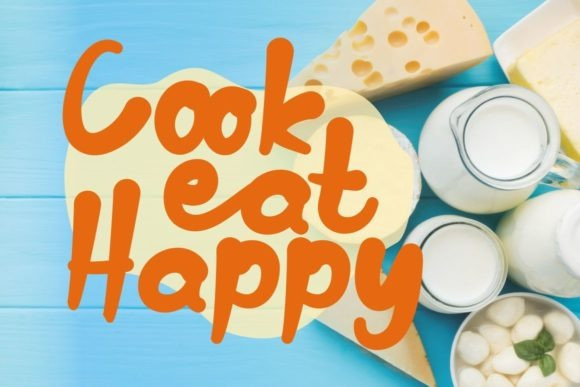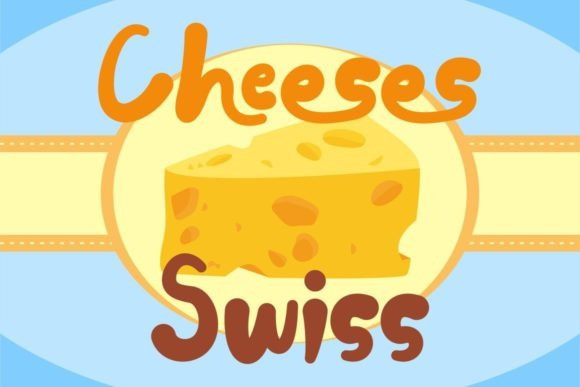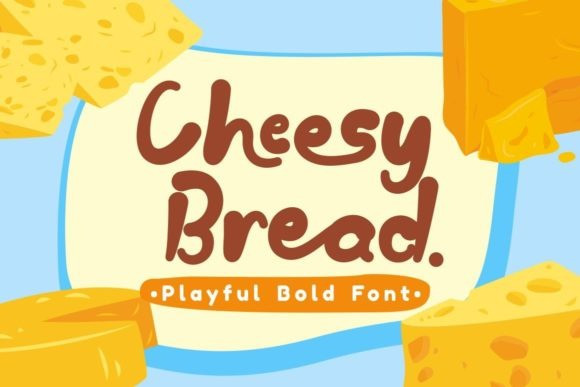
Cheesy Bread Font
Cheesy Bread Display Font is an utterly charming and playful display font. The characters embody authenticity and friendliness, which will make any creation stand out and look amazing!